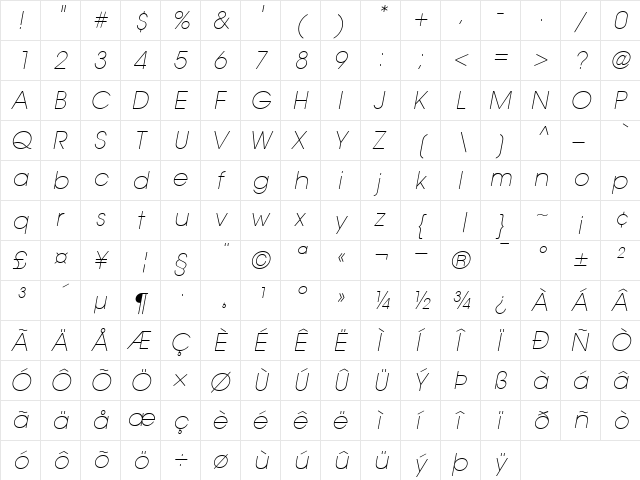
ITCAvantGardeGothic-ExtraLight Extra LightItalic Font Preview
Design Context for ITCAvantGardeGothic-ExtraLight Typeface
ITCAvantGardeGothic-ExtraLight has the quiet confidence of well-executed sans-serif typography: versatile, unobtrusive, and dependable at any size. The slanted form adds forward momentum and visual energy. Its slender proportions lend an understated elegance to any composition.
A natural fit for high-end product packaging, luxury brand identities, and refined web typography.
Font Pairing: Pair ITCAvantGardeGothic-ExtraLight with a medium or bold serif for headlines — the weight contrast creates an elegant, high-end feel.
Pro Tip: Use ITCAvantGardeGothic-ExtraLight with generous tracking and line-height for the most luxurious effect — light sans-serifs reward spacious, considered layouts.